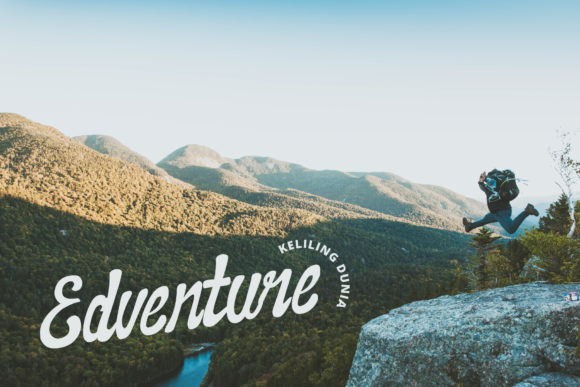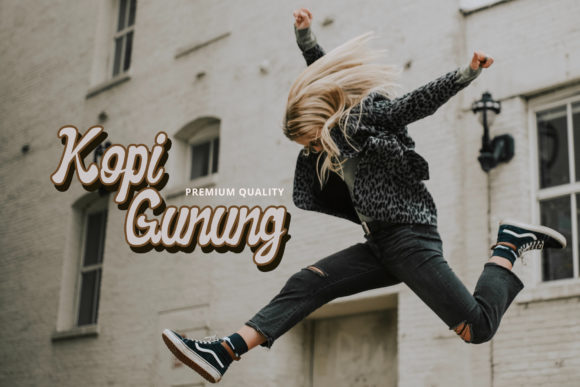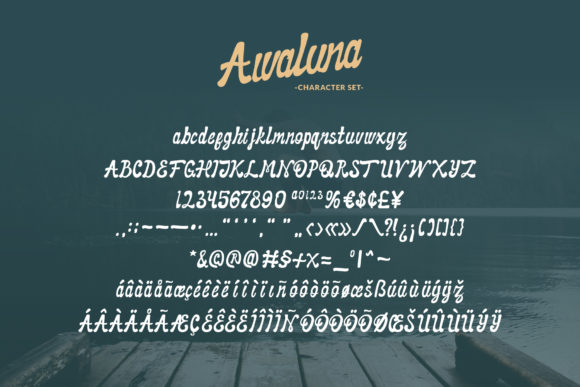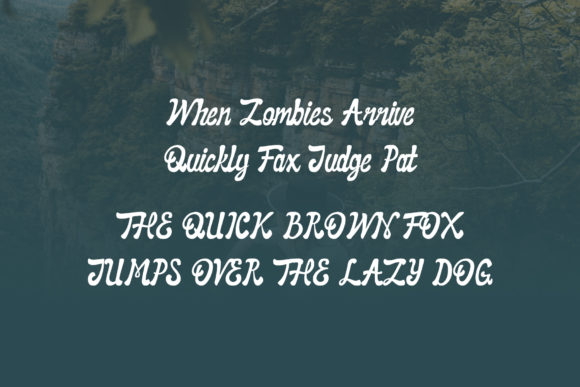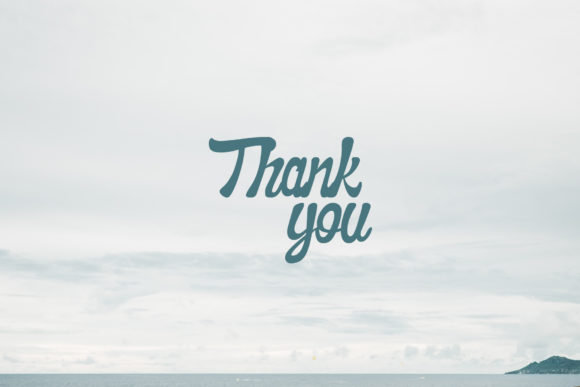
Unleash Your Creativity with the Awaluna Font
Have you ever found yourself staring at a blank canvas, searching for the perfect font to bring your design to life? For many of us, that moment of creative struggle is a familiar feeling. But what if I told you that the key to unlocking your artistic vision lies in a single, unique font?
Meet the Awaluna Font, a bold and charming handwritten font that embodies the essence of a bygone era. With its vintage feel and playful charm, this font is the perfect addition to any design project. Whether you’re a seasoned pro or just starting out, the Awaluna Font offers a level of versatility that’s hard to resist. Its value lies in its ability to add a touch of personality to any design, making it a must-have for designers looking to stand out from the crowd.
- Unique Characteristics: The Awaluna Font is known for its elegant, cursive script and its ability to convey a sense of luxury and sophistication.
Awaluna Font Review
Awaluna is a beautiful, elegant font that has the potential to elevate any design project. Here’s what I like about it:
- ✨ It has a unique, handmade feel that sets it apart from other fonts.
- ✨ The letterforms are intricately designed, with subtle curves and flourishes that add to its charm.
- ✨ The font is highly customizable, with a wide range of weights and styles to choose from.
- ✨ It’s perfect for creating a luxurious, high-end feel in your designs.
- ⚠️ The font can be difficult to read at smaller sizes, especially in digital formats.
- ⚠️ Some characters, such as the lowercase “e” and “a”, can be quite narrow and may cause spacing issues.
- ⚠️ The font may not be suitable for body text, as it can be quite ornate and may be overwhelming for long blocks of text.
Overall, I think Awaluna is a great choice for designers who want to add a touch of sophistication and elegance to their projects. While it may have some limitations, its unique charm and customization options make it a valuable addition to any design toolkit.
For best results, use Awaluna Font in conjunction with a high-contrast background to make the text stand out. You can also experiment with different font sizes and styles to create a unique visual effect.
Awaluna Font is ideal for creative projects that require a touch of elegance and sophistication. It’s perfect for designing invitations, menus, and other materials that need a high-end look.